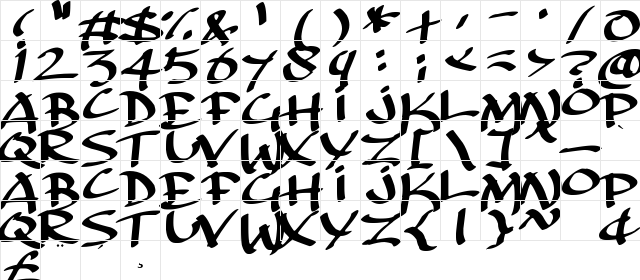
Archaic Asian Inks Regular
Design Context for Archaic Asian Inks Typeface
Archaic Asian Inks is a composed and adaptable typeface that performs quietly and consistently across a wide range of design contexts.